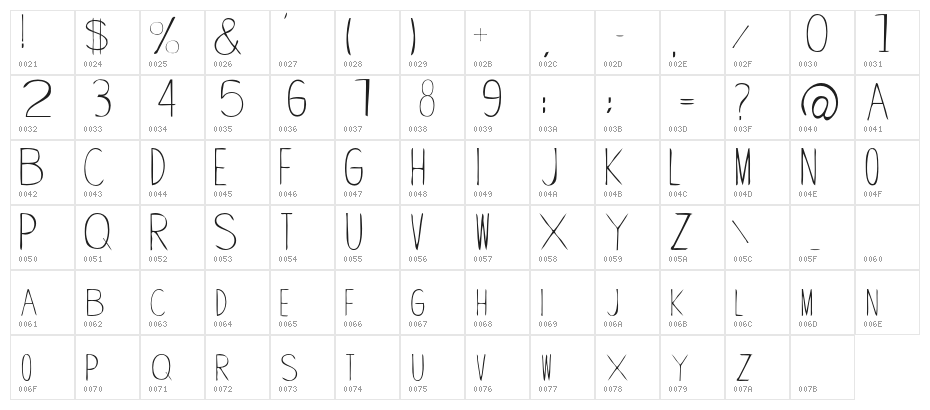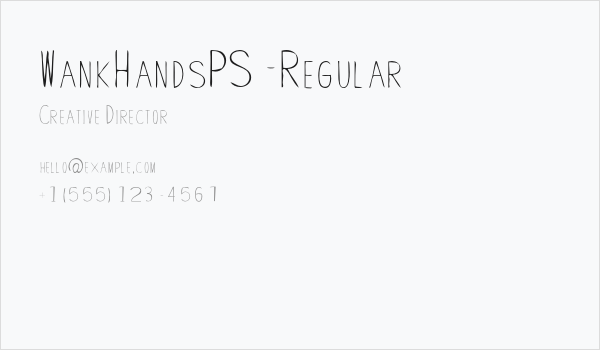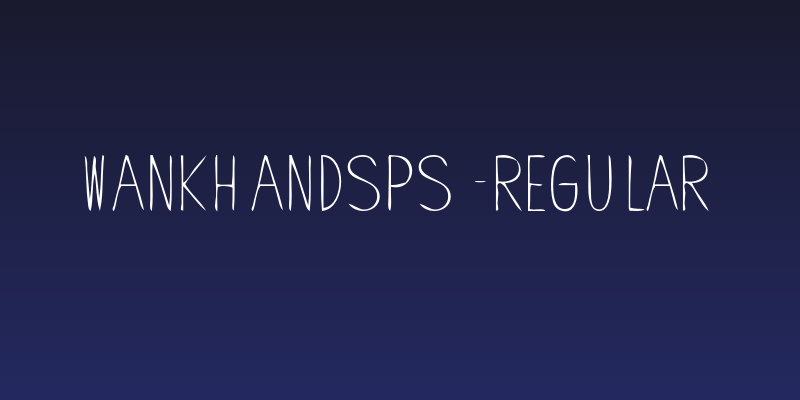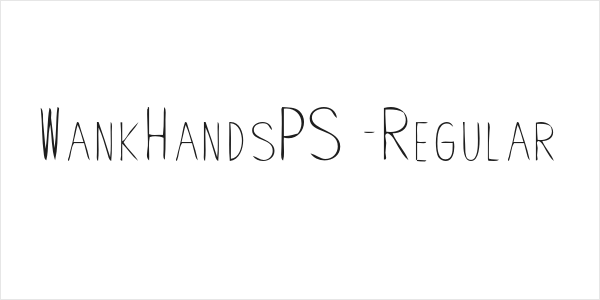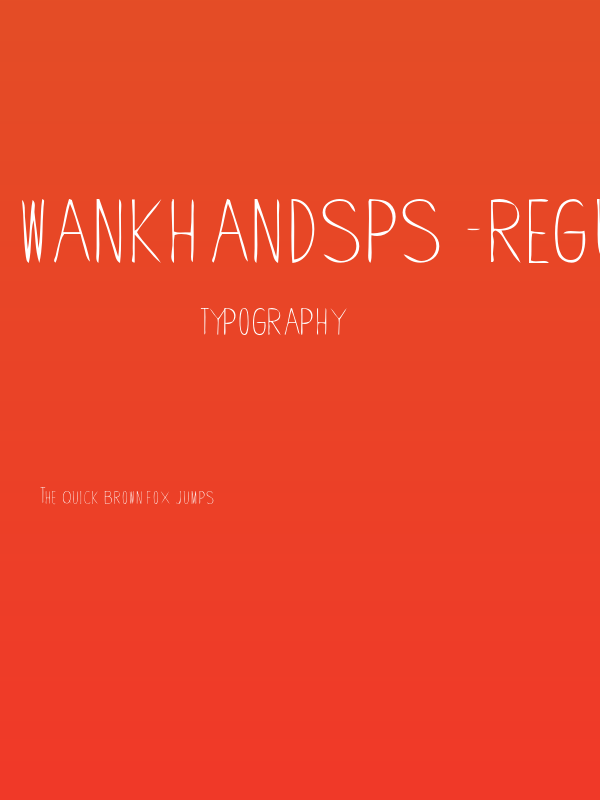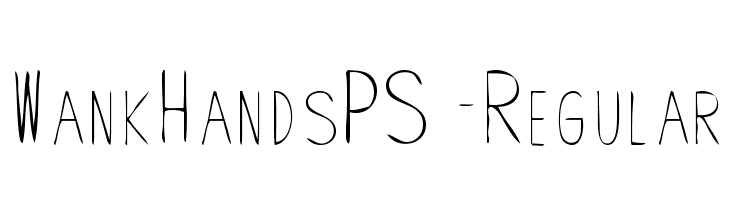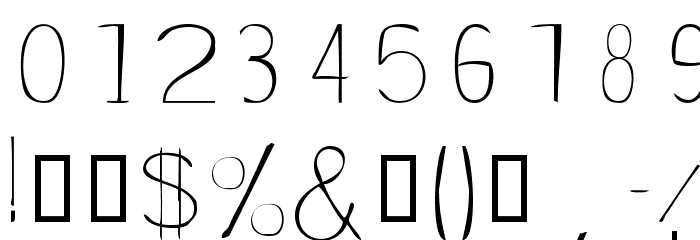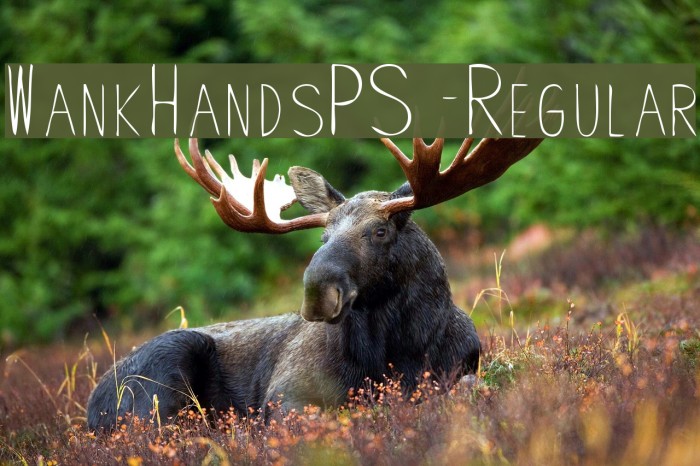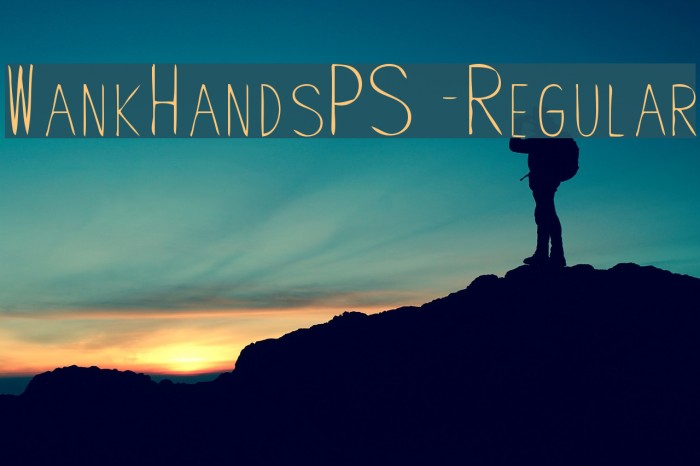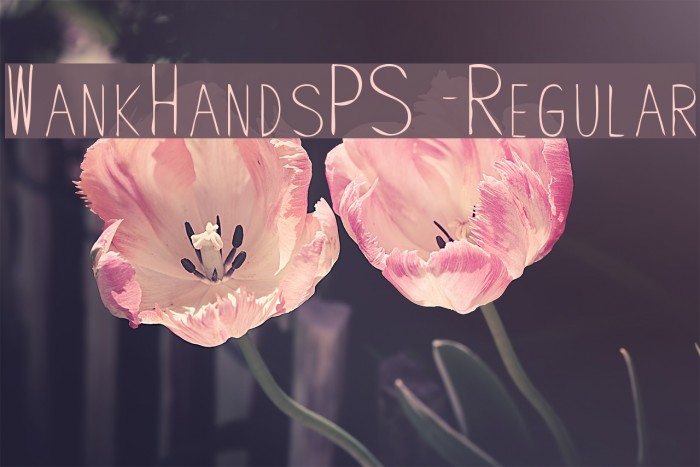
WankHandsPS-Regular Font
WankHandsPS-Regular Description
This font features a playful and quirky handwritten style, characterized by its tall, narrow letterforms and irregular strokes. The uppercase and lowercase letters maintain a consistent height, giving the font a uniform appearance despite its whimsical nature. The strokes vary slightly in thickness, adding a touch of dynamism and personality. The numbers and special characters are crafted with the same playful spirit, making them blend seamlessly with the alphabet. This font's unique style makes it stand out, offering a casual yet artistic vibe.
| Proposed Projects | Ideal for creative projects such as greeting cards, children's books, playful branding, and artistic posters. |